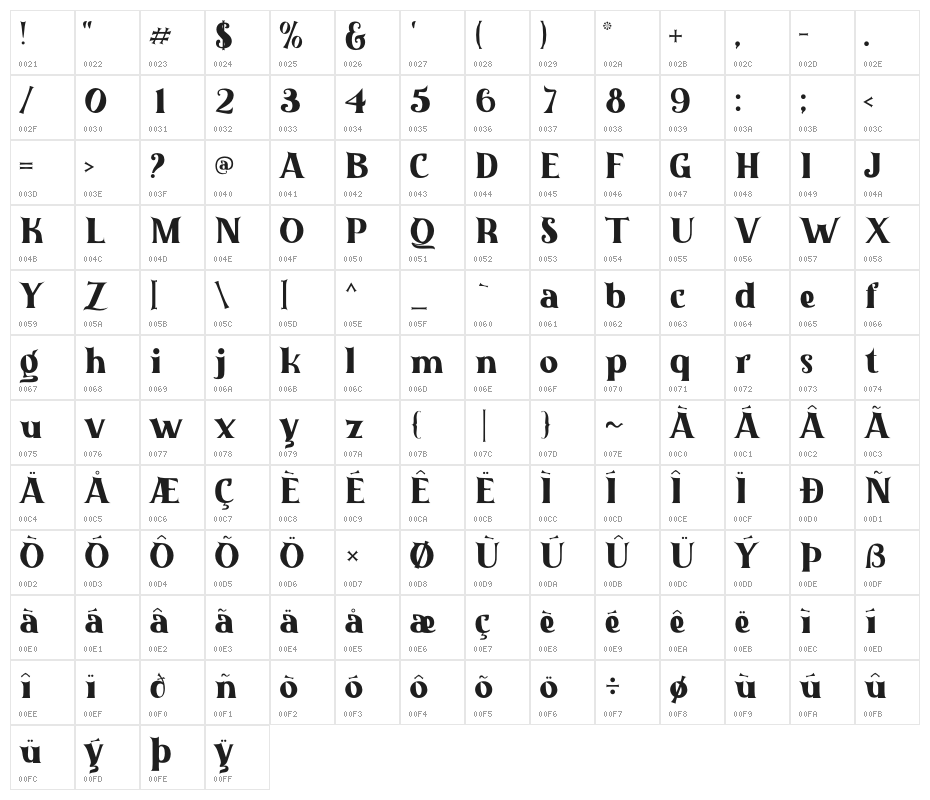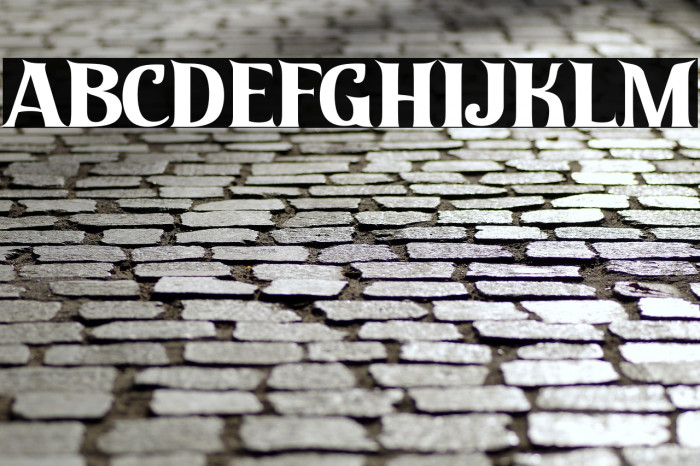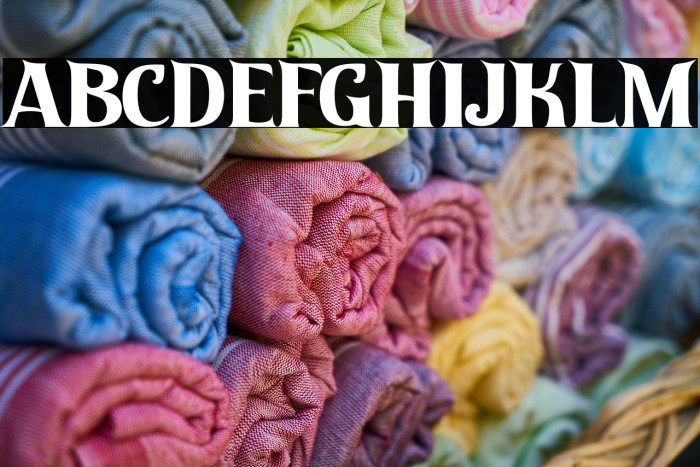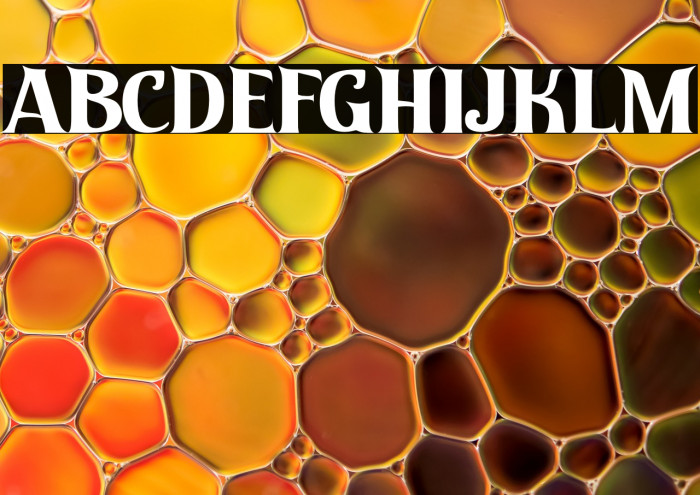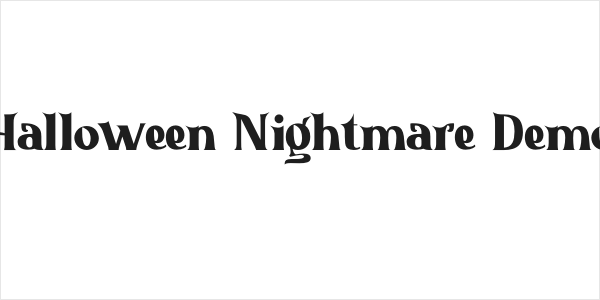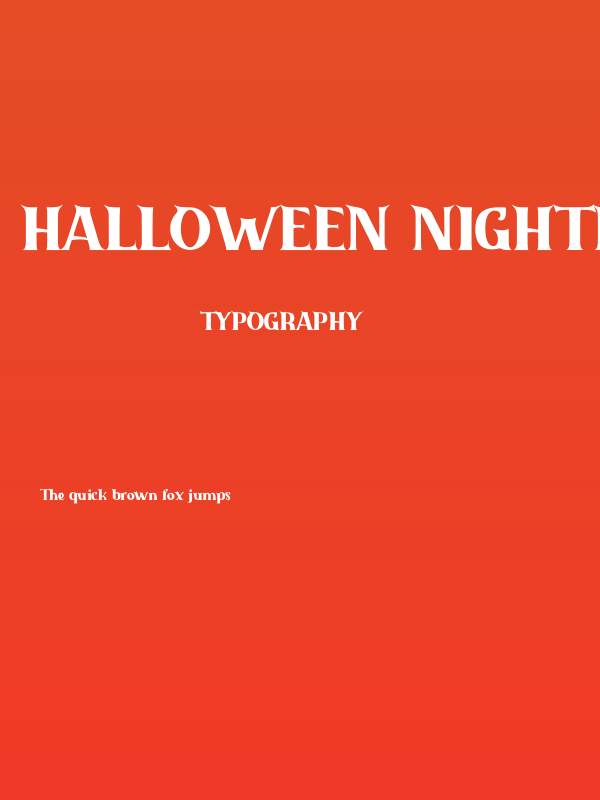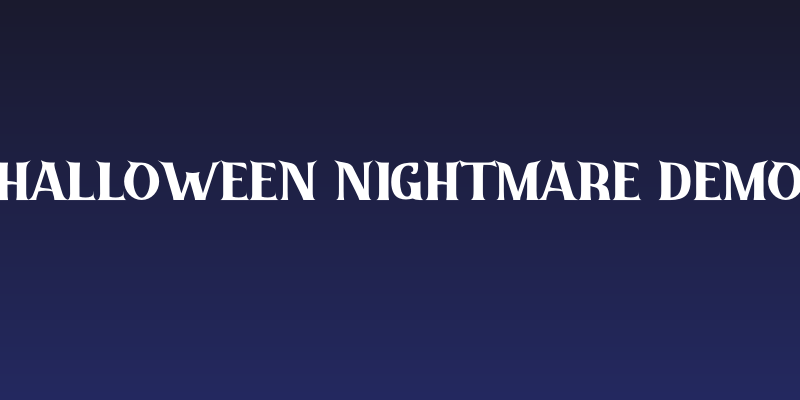
Halloween Nightmare Demo Font
Halloween Nightmare Demo Description
This font exudes a spooky and whimsical vibe, perfect for Halloween-themed designs. The characters have a playful yet eerie appearance, with exaggerated curves and sharp edges that evoke a sense of mystery and fantasy. The uppercase letters are bold and dramatic, while the lowercase letters maintain a consistent style with slightly more subtle curves. The numbers and special characters follow the same thematic design, making them ideal for creative projects that require a touch of the supernatural. The overall style is decorative, with a focus on capturing the essence of a Halloween nightmare.